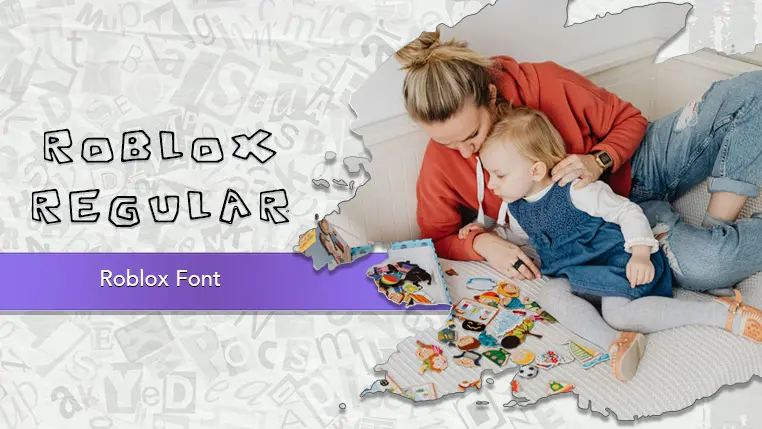
The As Cute As... font family may be ideal for you if you enjoy working on an artistic design project. The lively, expressive look of this typeface, which was created by Steve Gardner, makes it ideal for Children's Content and Products(Children's book titles, chapter headings, or short dialogue) Educational materials for kids like Worksheets, flashcards, or interactive app elements, Toy packaging and branding, Baby shower or birthday invitations and other light-hearted visual projects.
Bold, Heavy, Semi Bold, Regular are the four primary font styles of the As Cute As... font family. You may build dynamic, visually appealing text layouts with the distinct flair that each style offers. With crisp, readable lines and a relaxed tone.